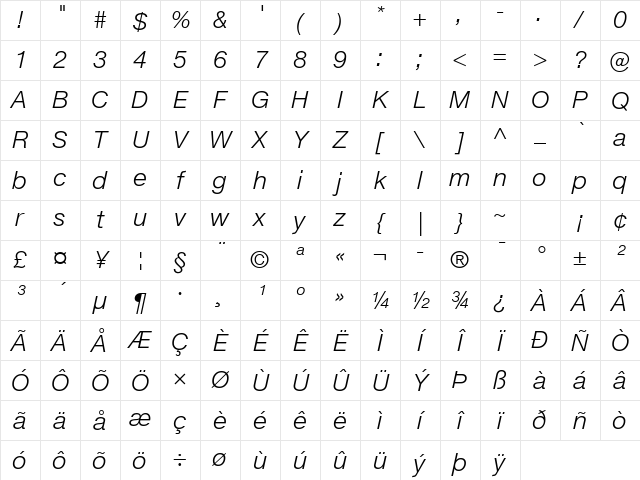
Helvetica Neue ET Pro 46 Light Italic
Style: 46 Light Italic
Designer: Linotype Design Studio
Design Context for Helvetica Neue ET Pro
Helvetica Neue ET Pro is a composed and adaptable typeface that performs quietly and consistently across a wide range of design contexts. The slanted form adds forward momentum and visual energy. Its slender proportions lend an understated elegance to any composition.